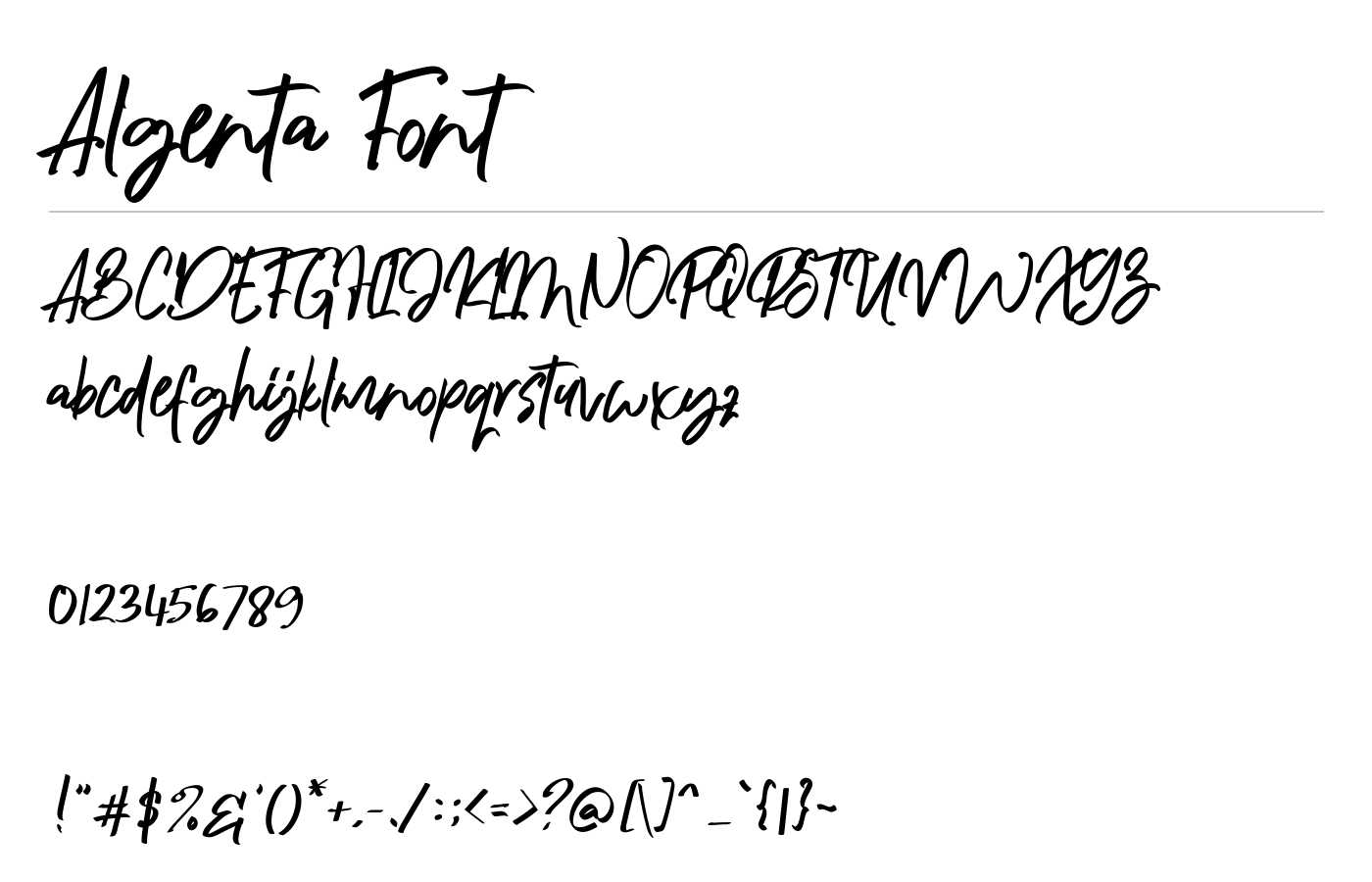
Algenta Font is a lively and elegant handwritten script with a casual yet refined feel, characterized by its flowing strokes and varying line thickness. Its dynamic, slightly condensed letterforms lend a personal and approachable style, making it ideal for creative branding, invitations, and stylish headlines where a touch of uniqueness and warmth is desired. This font works well in both digital and print contexts, adding personality without sacrificing readability.
Algenta Font
About Algenta Font